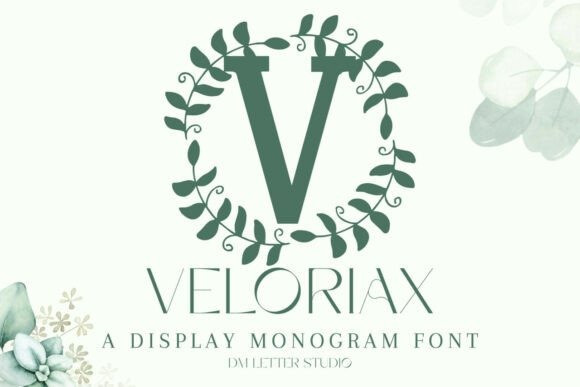
Veloriax Monogram Font
Veloriax Monogram Font turns simple initials into bold, boutique-ready emblems with a modern luxe vibe. Strokes are smooth and balanced, while generous counters keep tiny tags readable and thumbnails crisp. Use it for wedding suites, boutique logos, keepsake gifts, wax seals, stationery, and premium packaging. Because spacing is even and forms are confident, your layouts look polished at small sizes and still hold presence on large prints.
Where this monogram font shines
Set single, double, or triple initials for logos, menus, place cards, and seals. Then frame them with laurel rings, ovals, rope circles, or fine rules to echo Veloriax’s poised geometry. Since proportions favor symmetry and clarity, centered compositions come together in minutes. As a result, your listings stay cohesive across invitations, signage, boxes, and ribbons. Veloriax also scales smoothly from jewelry cards to entry displays, which makes it ideal for events, retail packaging, and gift programs.
Fast setup, premium results
Design tips for Veloriax Monogram
Keep initials large and let white space breathe. Pair the hero mark with a soft serif for body copy or a neat humanist sans for dates and labels. Add a fine inner stroke, micro shadow, or delicate frame to create depth. Because the structure is airy and refined, textured papers and metallic foils raise perceived value. Keep wording short so the monogram remains the hero on favors, tags, and wax seals.
You want elegance that reads at a glance and sells across many product types. Veloriax Monogram Font delivers steady clarity, fast layout, and a cohesive brand voice from invites to packaging and gifts.